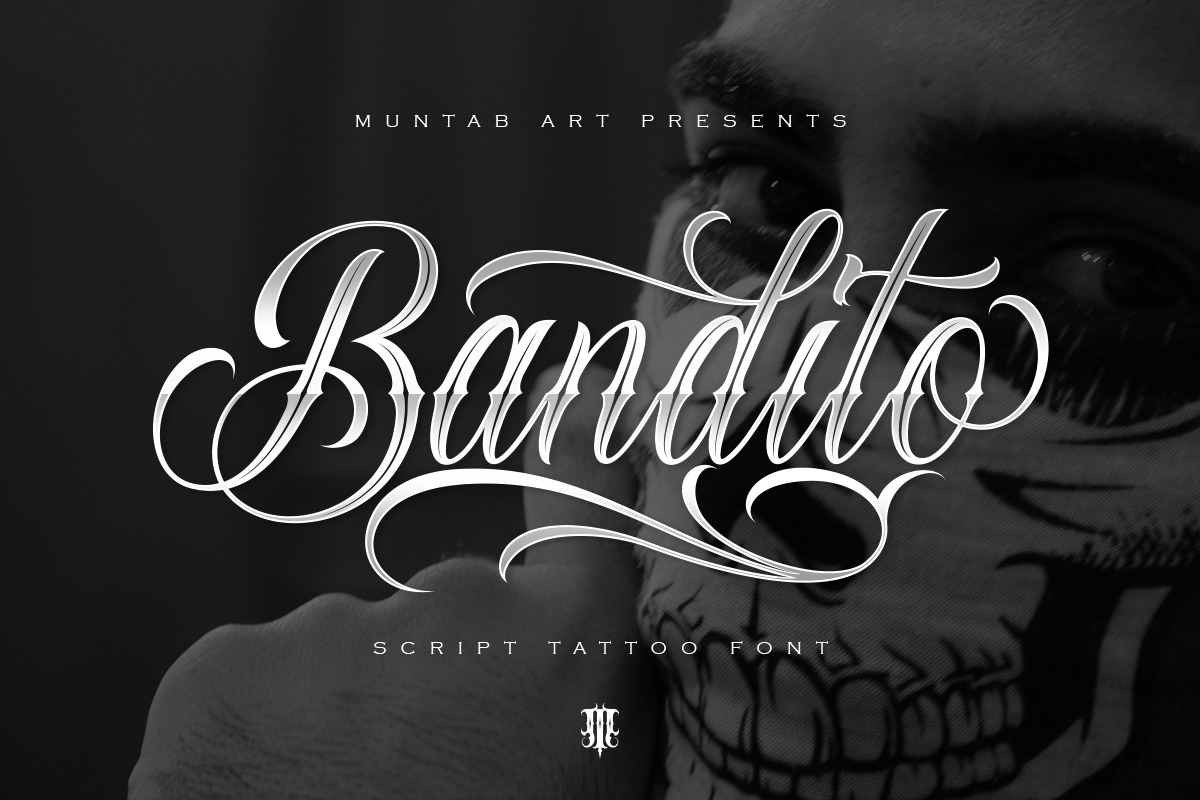
Bandito Script | Tattoo font
Introducing of our new product the name Bandito fonts. Bandito includes uppercase and lowercase letters, numerals, a large range of punctuation and ligatures. All lowercase letters include ending swashes and alternative font.
this font is a lot of fun to use, with variations for each lower case, along with a set of florishes.